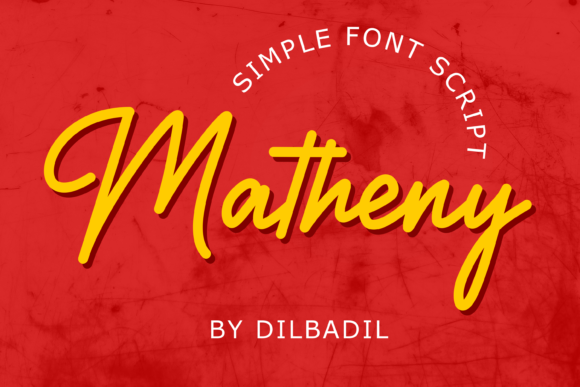
Immerse yourself in the enigmatic world of Matheny Font, a meticulously crafted script font that will captivate your senses and elevate your creative endeavors to new heights. With its enchanting vintage aesthetic, Matheny evokes a sense of playful nostalgia, beckoning you to embrace the timeless charm of yesteryear.
Unleash your imagination and let Matheny guide you as you craft captivating quotes that resonate with emotion and authenticity. Its graceful curves and whimsical flourishes will add a touch of elegance to your words, making them leap off the page with an unforgettable impact.
But the allure of Matheny extends far beyond the realm of quotes. Its versatile nature makes it a perfect companion for a myriad of design projects, from ethereal invitations to alluring fashion designs. Imagine your creations adorned with Matheny's delicate strokes, infusing them with a timeless beauty that transcends the boundaries of time.
With Matheny Font, the possibilities are endless. Its evocative power will ignite your creativity, inspiring you to craft designs that exude charm, character, and a touch of vintage magic. Embrace the enchantment of Matheny and embark on a creative journey that will leave a lasting impression on all who behold your work.